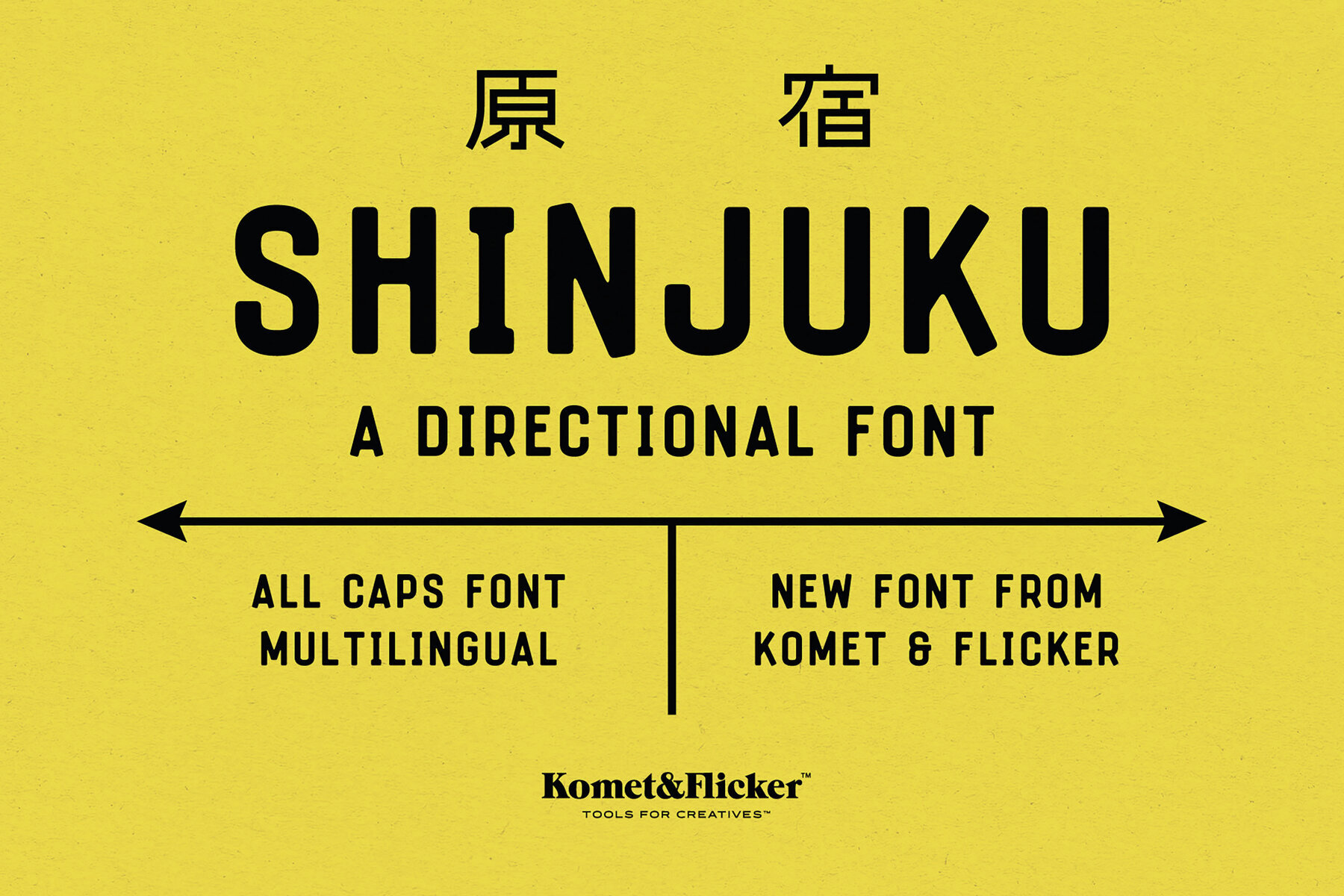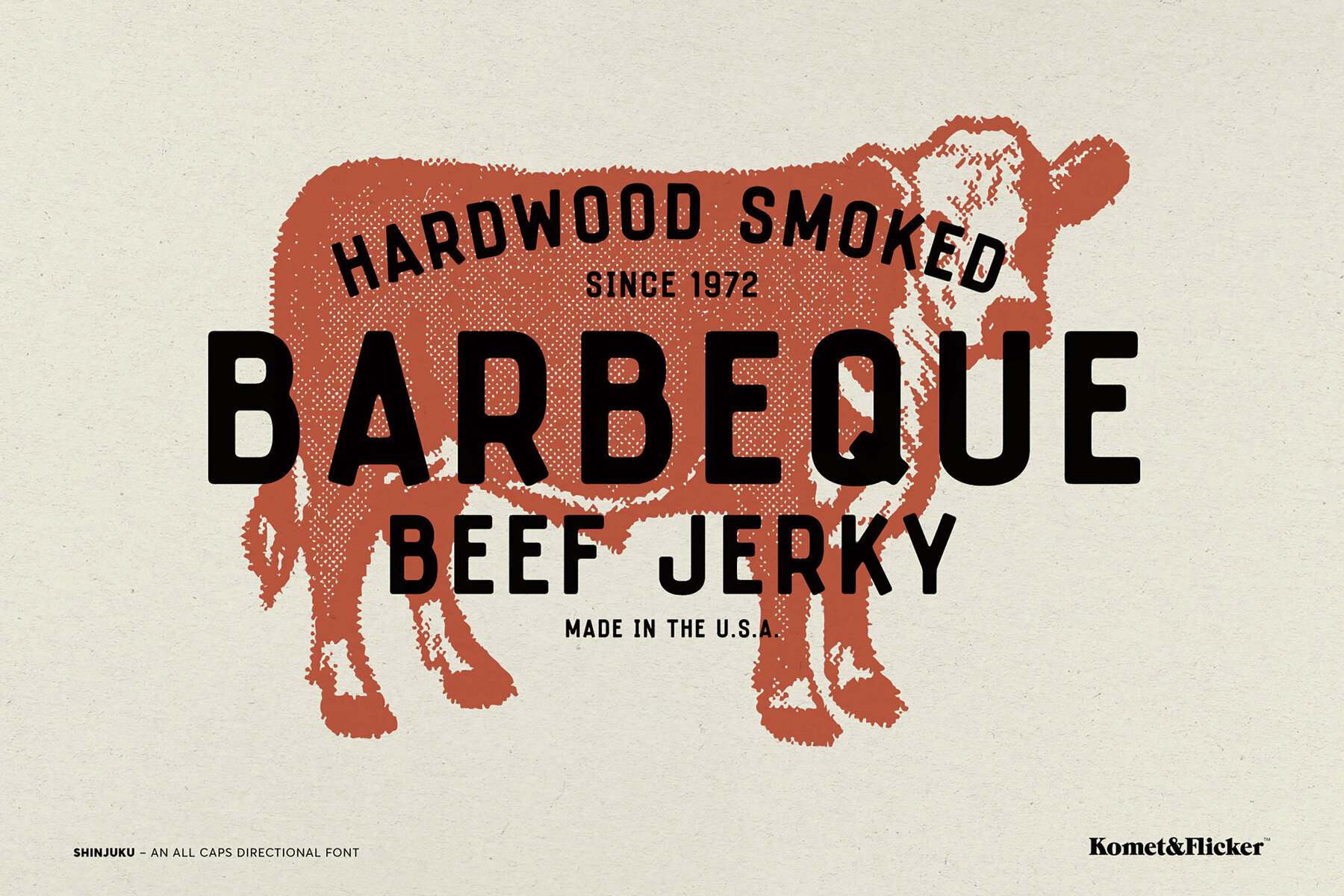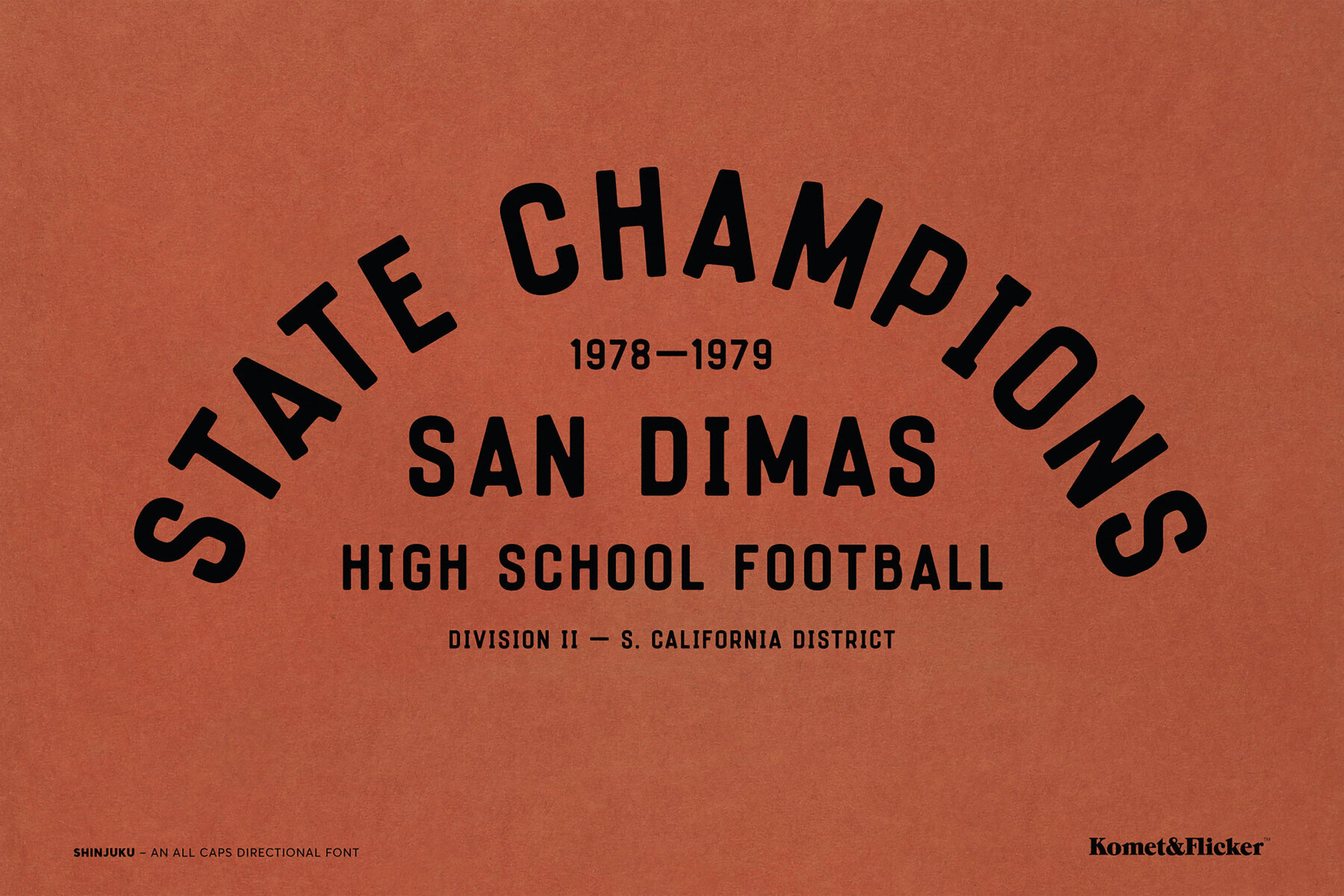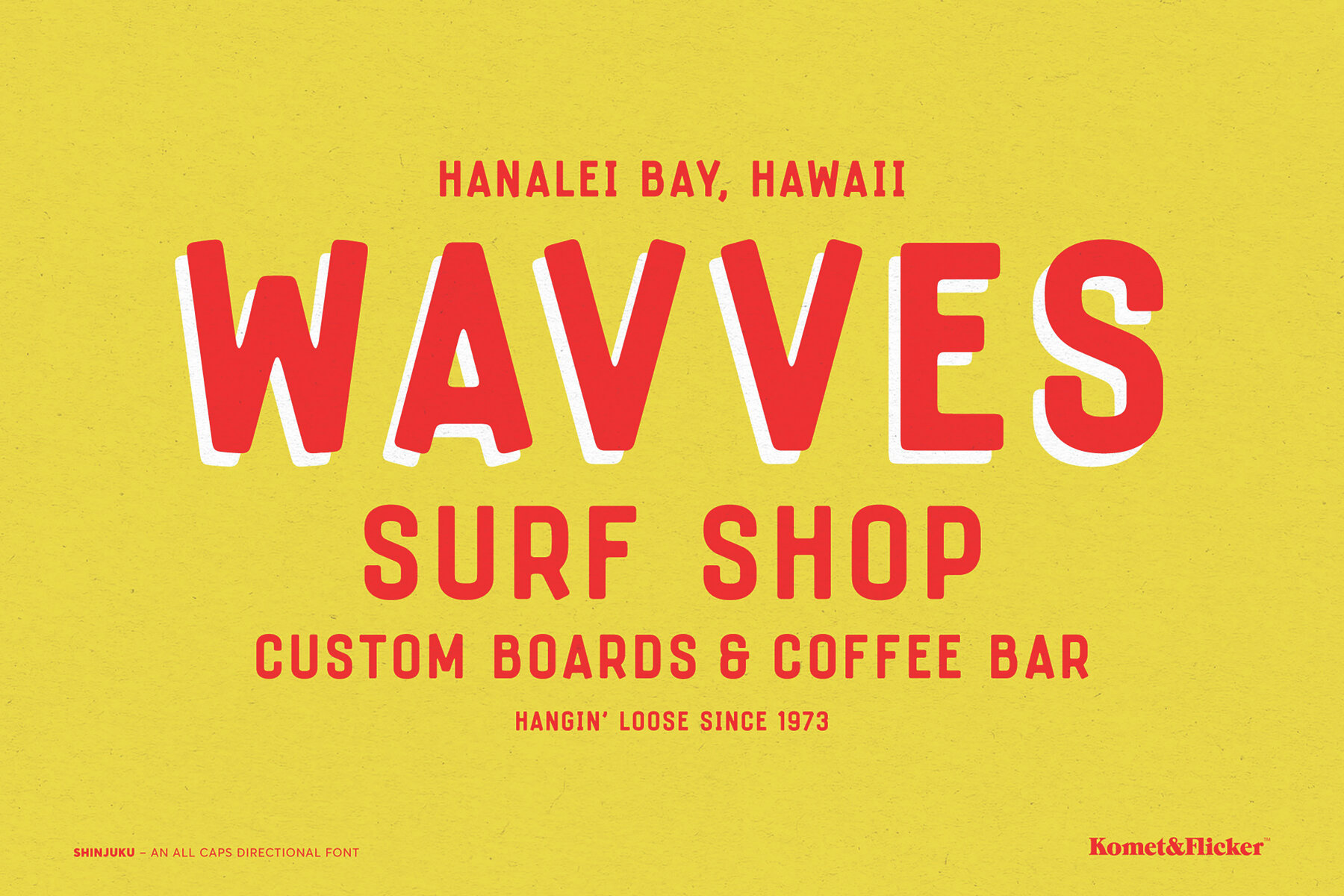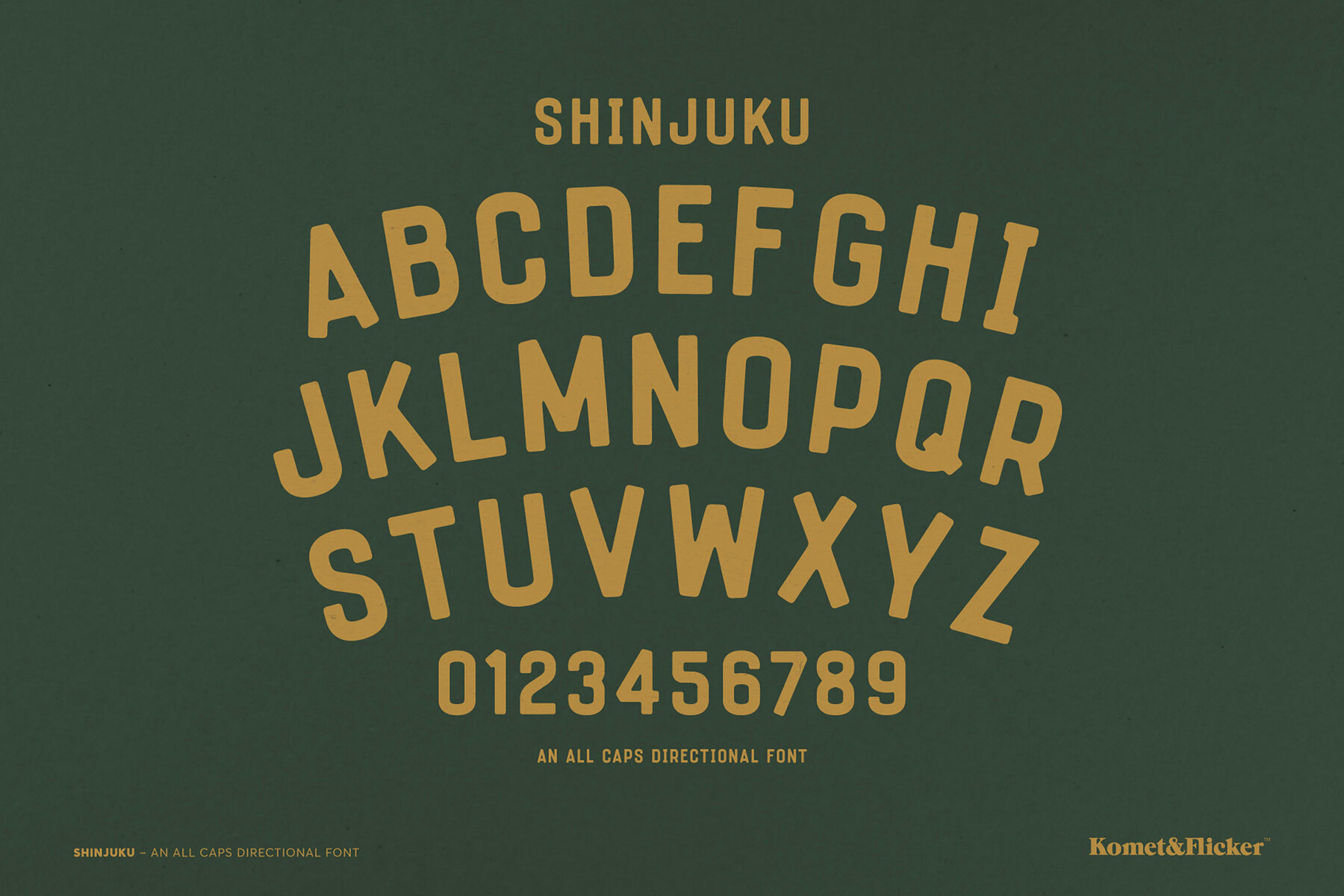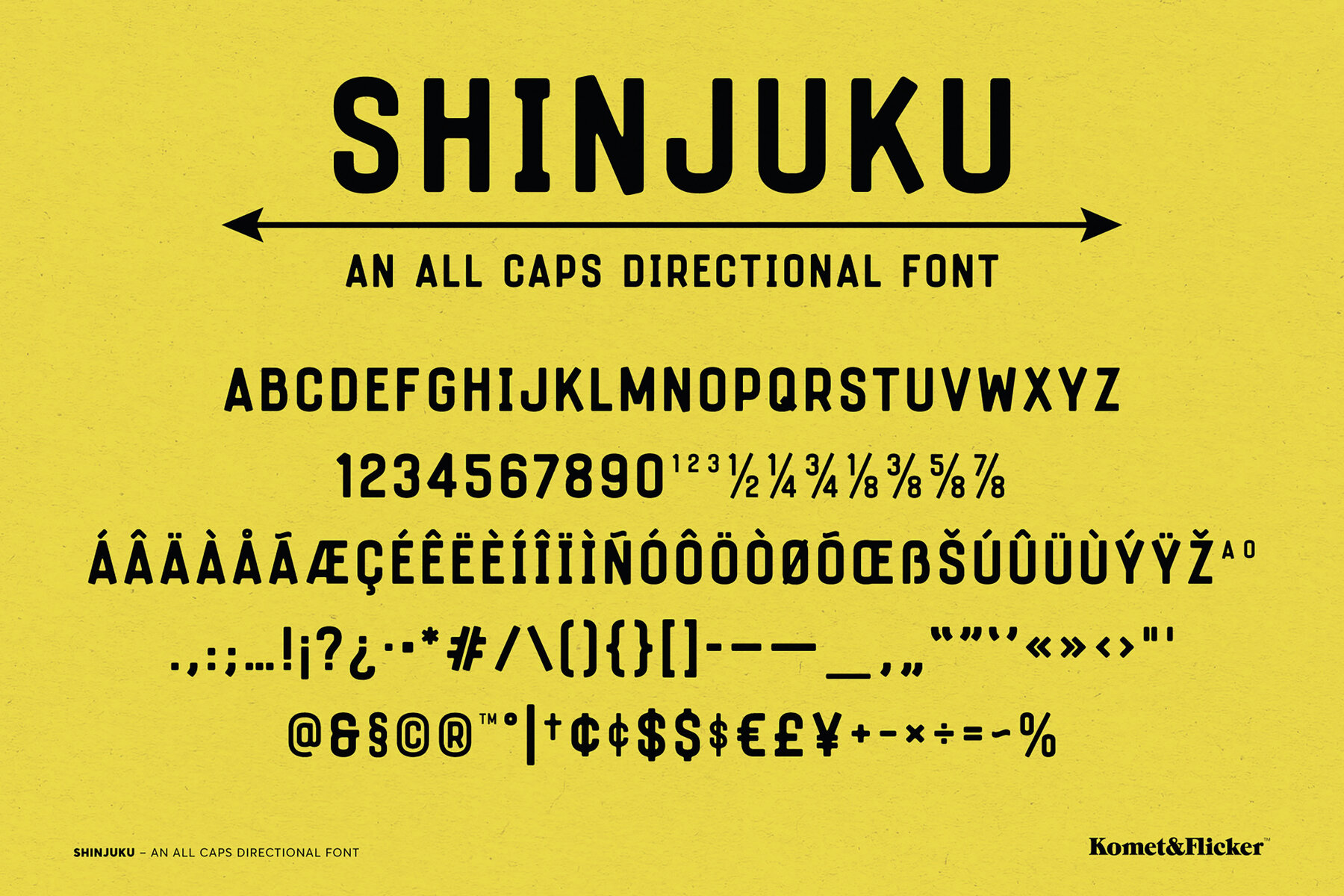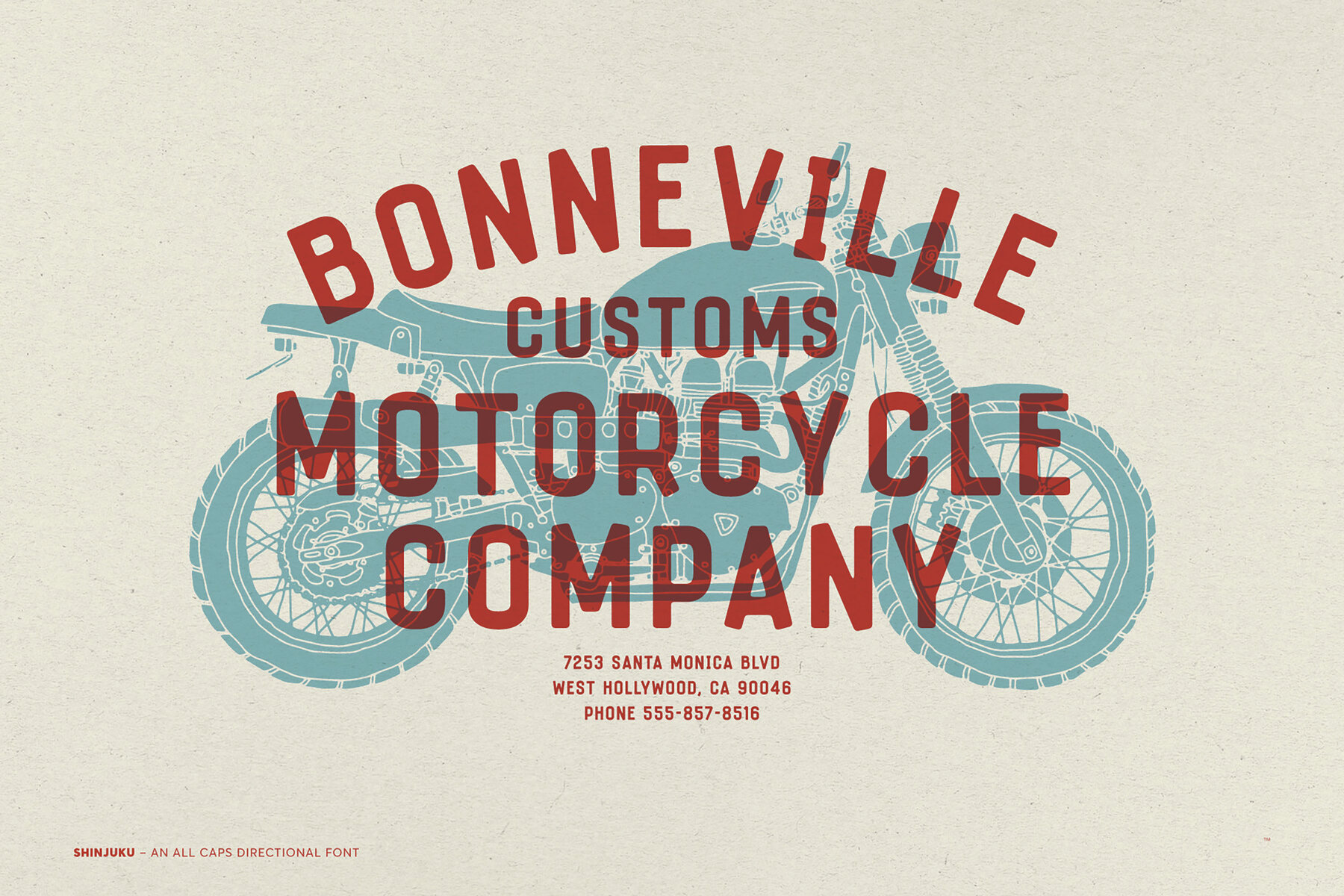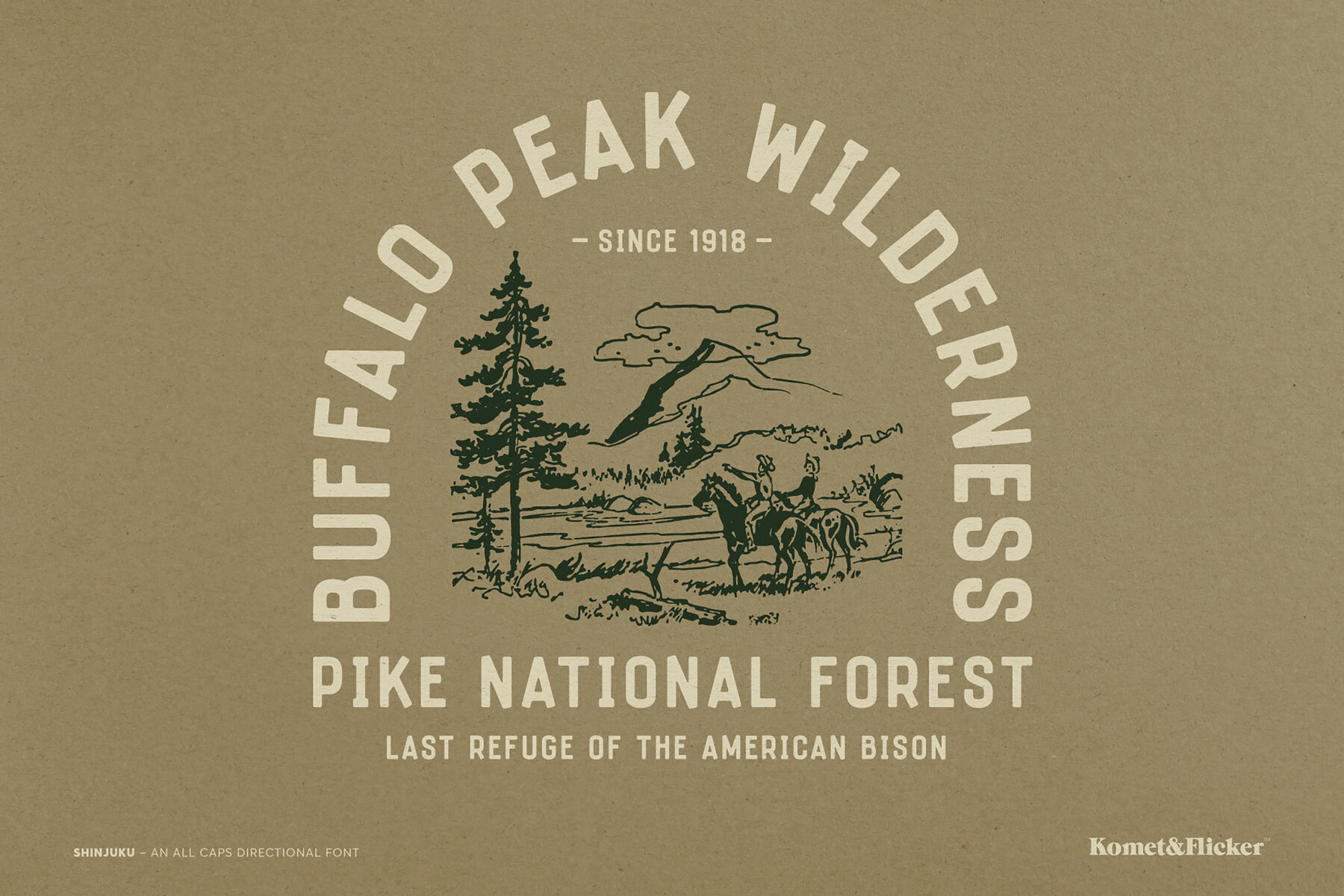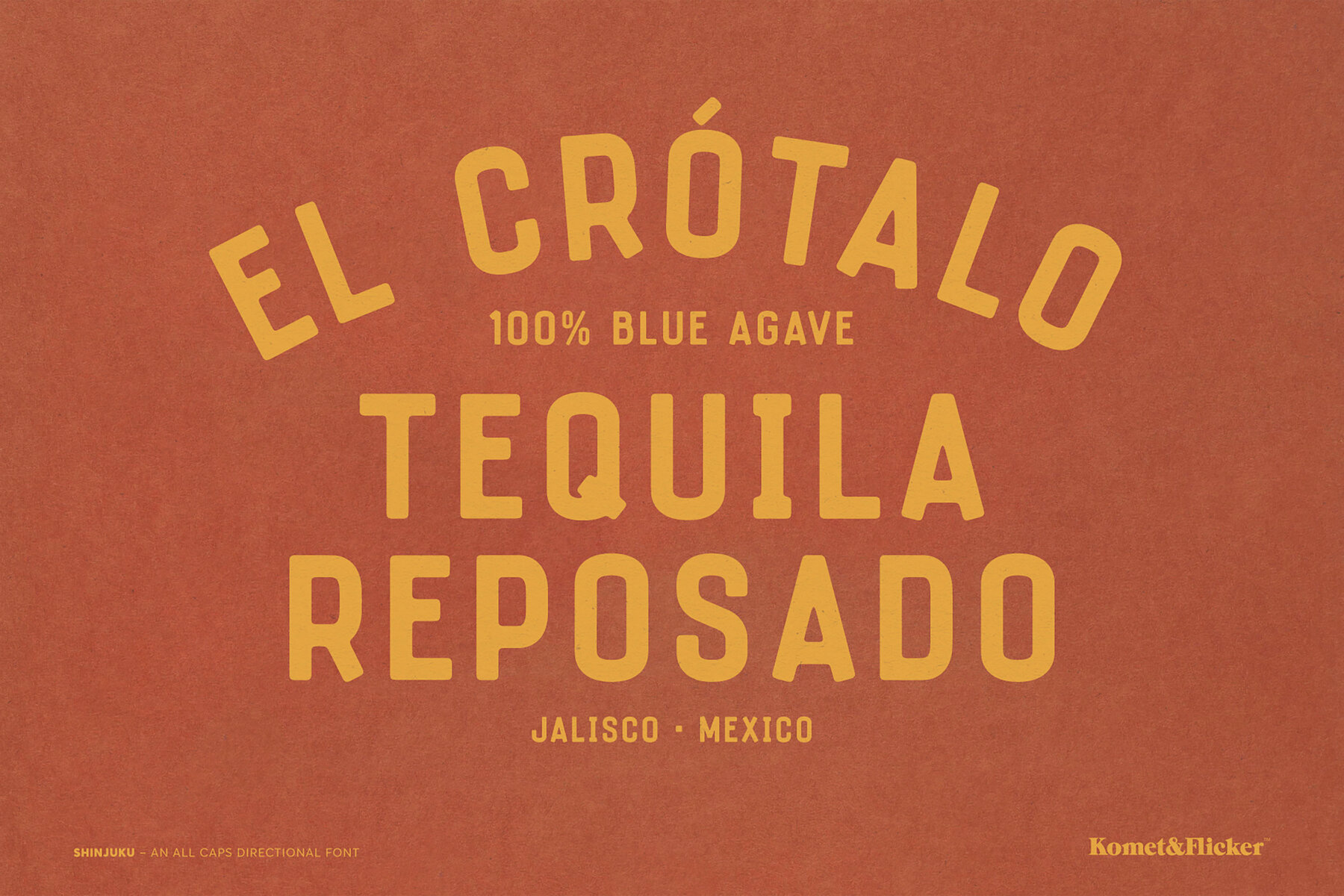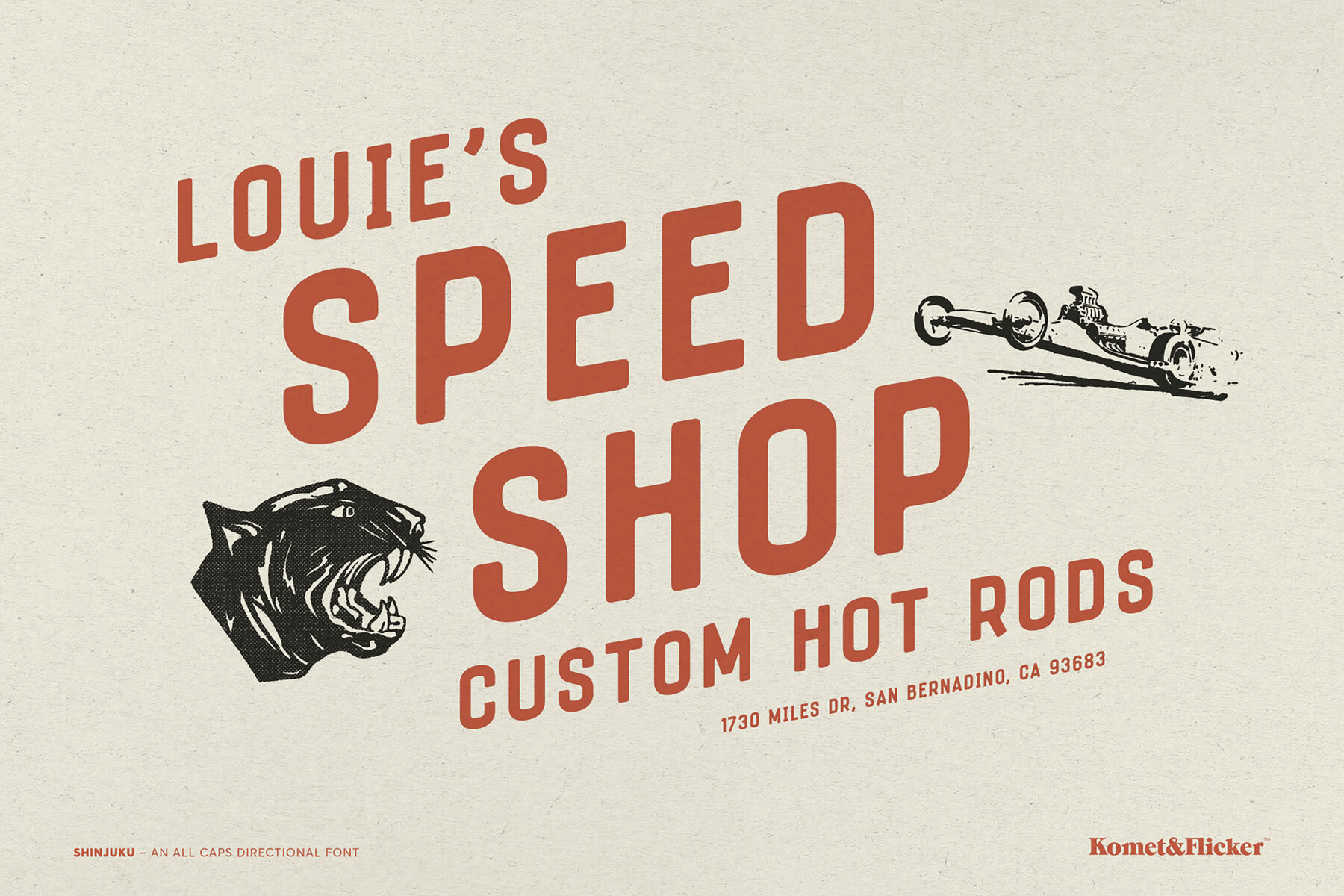
Shinjuku Font
Shinjuku Normal
Inspired by the bold typography of Japanese street signs, Shinjuku is an all-caps sans serif font that commands attention. Its straightforward geometry paired with soft letterforms communicates clarity and confidence, ideal for navigating the urban landscape. Every subtle design intricacy gives Shinjuku a distinctive flair, making it suitable for headlines, posters, branding, and editorial work.Shinjuku: Bold Urban Sans Serif